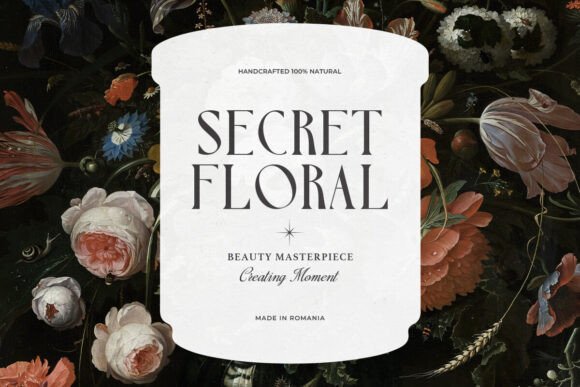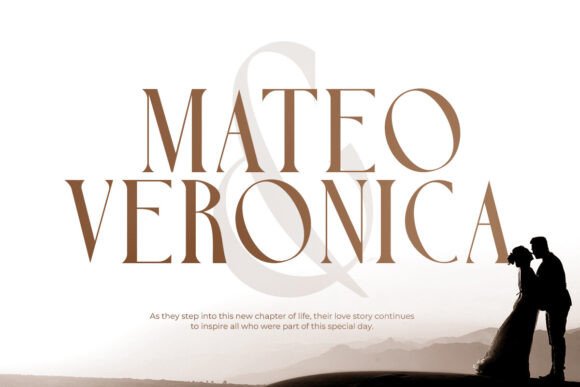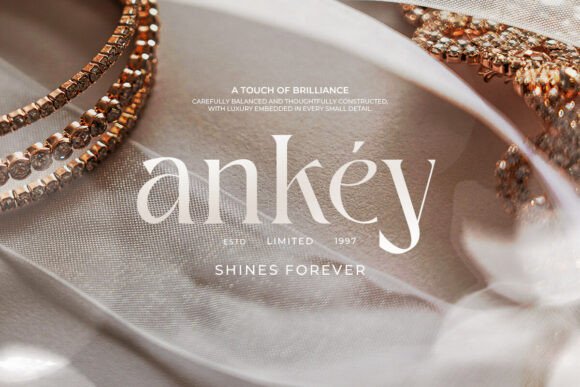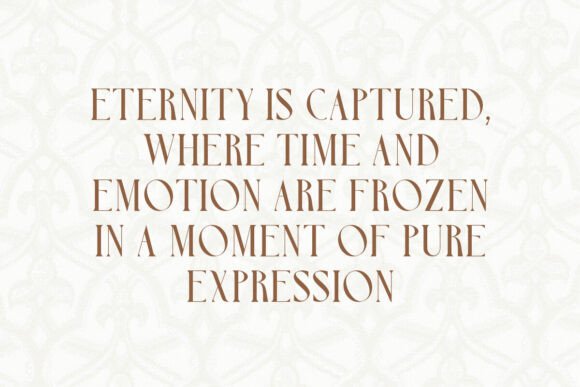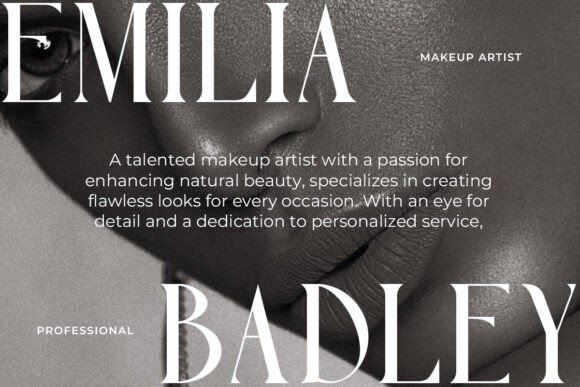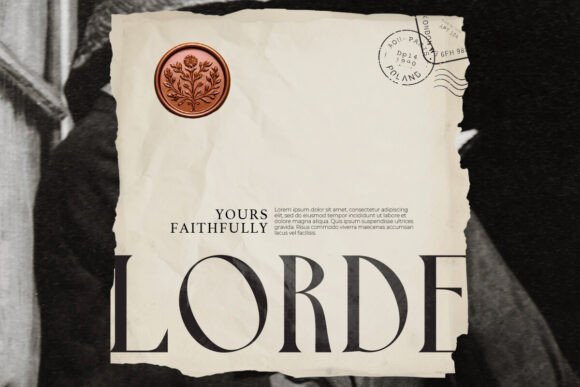
Introduction to Robuca Font
Have you ever stared at a beautifully crafted logo or packaging design and thought, ‘how did they come up with this?’ For designers, that ‘aha’ moment is what drives us to create something truly remarkable. And that’s exactly what the Robuca Font is all about – bringing a touch of elegance and sophistication to your creative projects.
As a high-quality design resource, Robuca Font seamlessly blends vintage charm with a modern twist, making it the perfect choice for designers looking to elevate their work. With its sleek lines and refined aesthetic, this versatile font is ideal for creating lasting impressions on packaging, logos, and promotional materials. Whether you’re working on a free download or a paid project, Robuca Font is a valuable addition to your design toolkit.
Key Features of Robuca Font
- High-quality font design ideal for creative projects requiring a unique touch.
- Features a large character set, including uppercase and lowercase letters, numbers, and punctuation marks.
- Perfect for use in digital and print media, including logos, graphics, and typography-based designs.
Honest Review: Robuca Font
As a designer, I’m always on the lookout for high-quality design resources that can elevate my creative project. Recently, I stumbled upon the Robuca Font, and I must say it’s been a game-changer. ✨
What works well is its versatility – the font is perfect for creating striking titles, headings, and even logos. The clean and modern design makes it a great choice for a wide range of creative projects, from business cards to digital products.
However, I do have some reservations ⚠️. The font may not be suitable for very small text sizes, as the strokes can become a bit blurry. Additionally, some users may find the font a bit too minimalist for their taste.
Overall, I’m impressed with the Robuca Font’s potential to enhance any design project. Its high quality and creative possibilities make it a valuable addition to any designer’s toolkit.